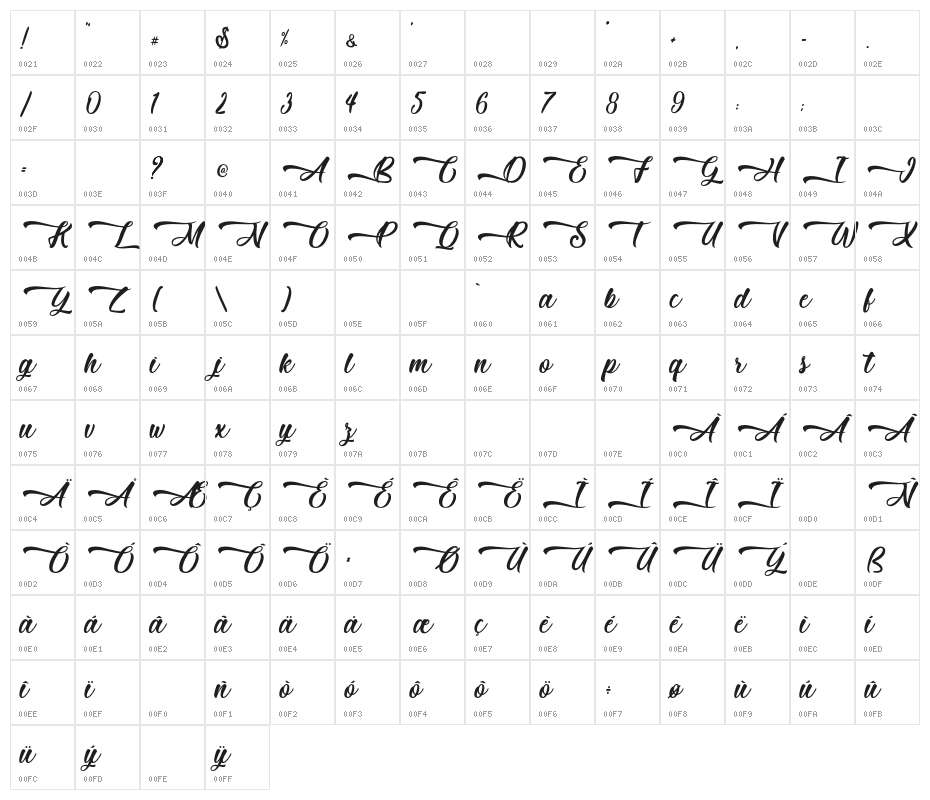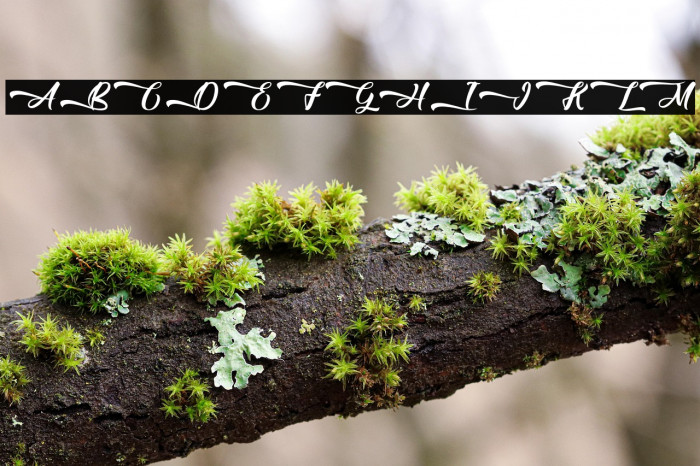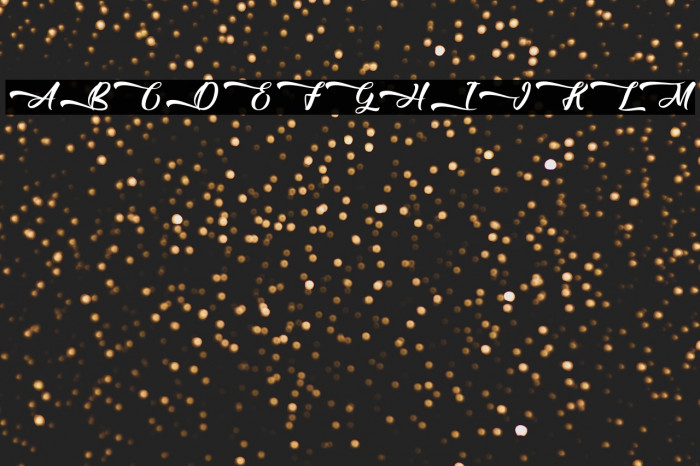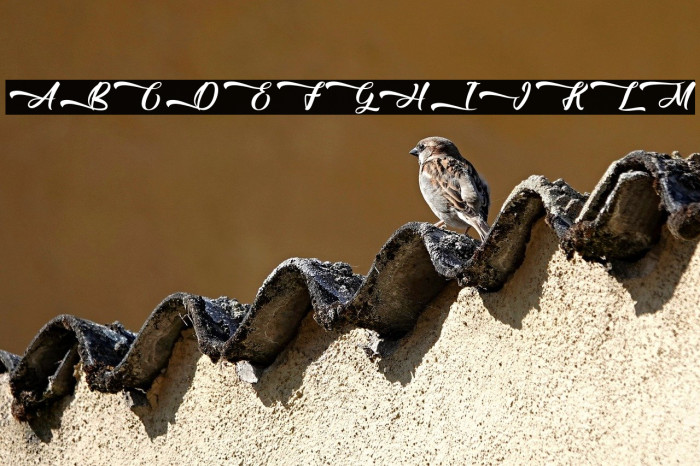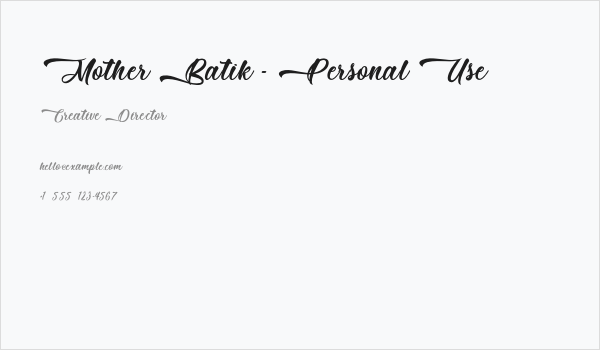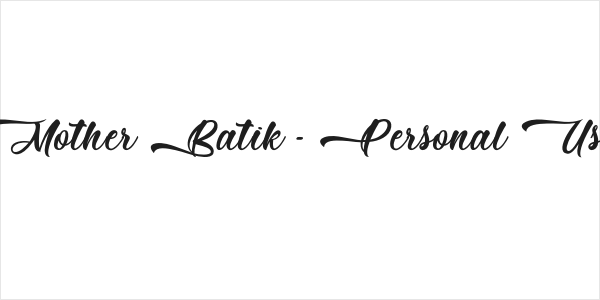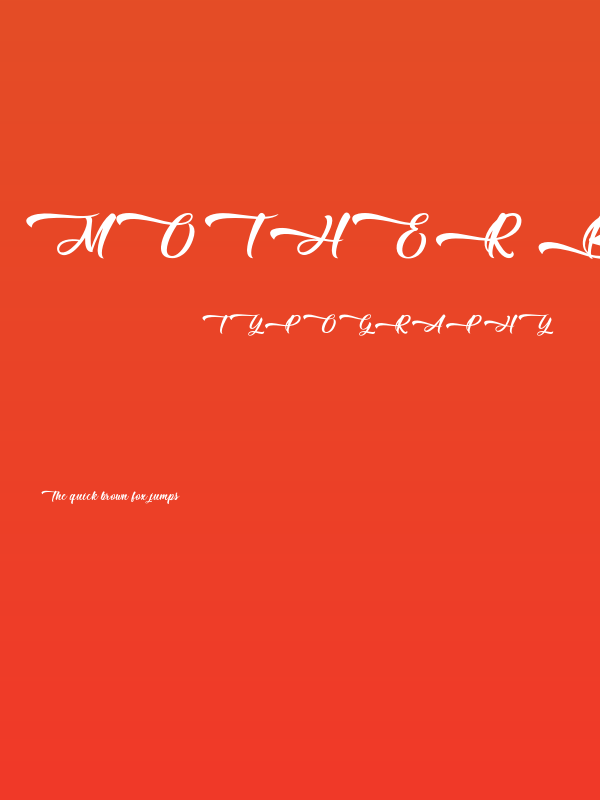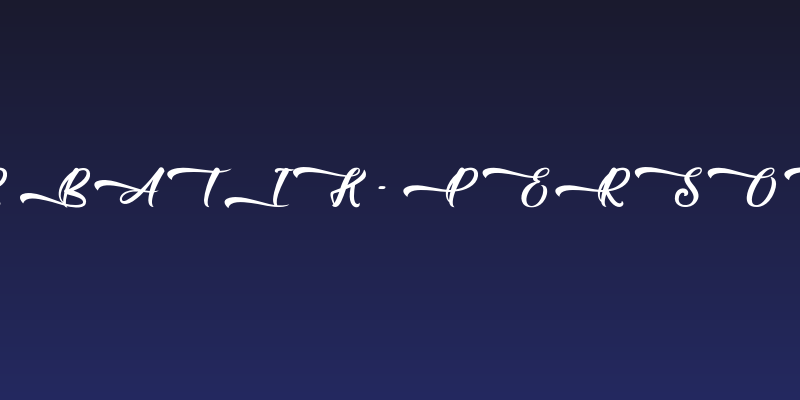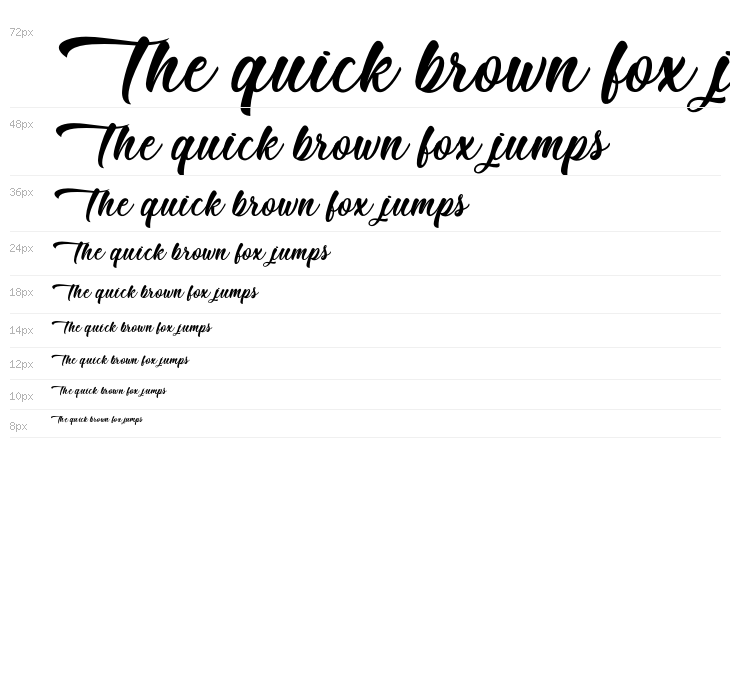
Mother Batik - Personal Use Font
Mother Batik - Personal Use Description
This font features a flowing, cursive style that exudes elegance and sophistication. The uppercase letters are characterized by their sweeping, elongated strokes and decorative flourishes, giving them a refined and artistic appearance. The lowercase letters maintain a consistent, smooth flow, with some letters featuring loops and swashes that enhance their visual appeal. The numerals are bold and slightly slanted, complementing the overall cursive theme. Special characters are designed with the same attention to detail, ensuring they integrate seamlessly with the alphabet. This font's intricate design makes it ideal for projects that require a touch of elegance and creativity.